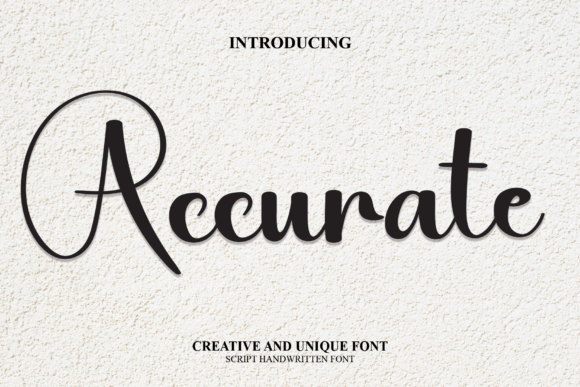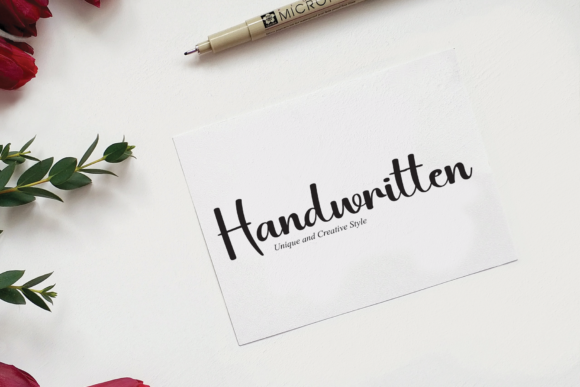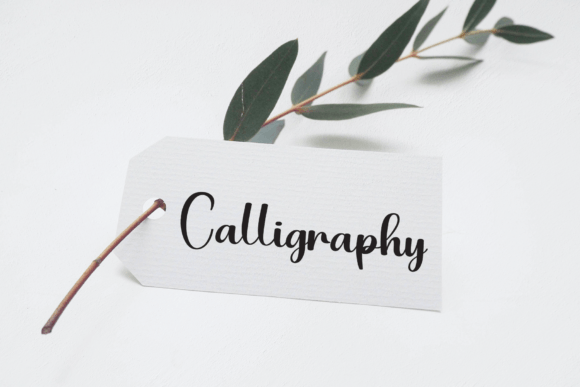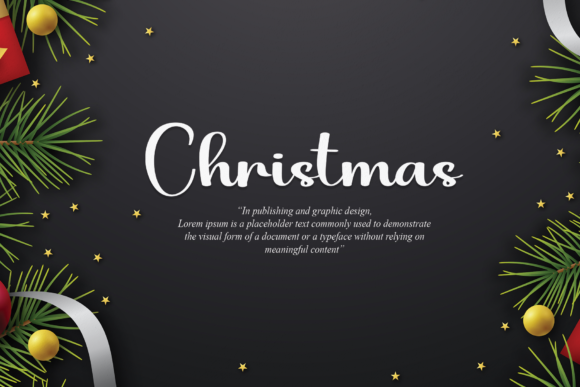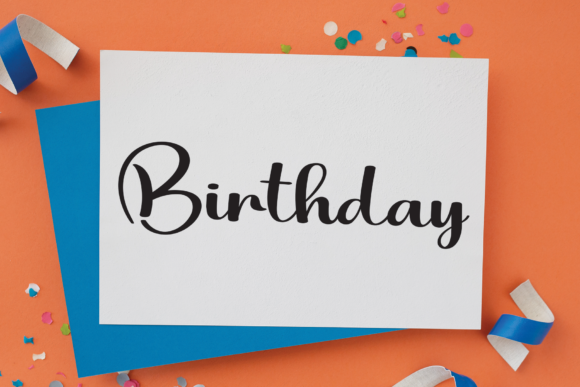
Accurate Font
About Accurate Font
“Accurate”: A Modern Script Typeface with Unique Flow and Elegant Personality
Introducing “Accurate,” a new modern script typeface that brings its own unique flow and elegant personality to the forefront. Designed to meet all your design project needs, including logo design, branding, covers, posters, and more, “Accurate” stands out as a versatile and stylish font choice.
The standout features of “Accurate” lie in its modern script design, showcasing a distinctive flow and an elegant personality. Each letter is crafted with precision to provide a contemporary and sophisticated look. Whether you’re working on logos, branding elements, covers, posters, or any design project, “Accurate” becomes the key element that adds a touch of modernity and style.
Imagine using “Accurate” in logo design where the font’s unique flow creates a memorable and distinctive brand identity. In branding projects, the elegant personality of the font enhances the overall sophistication and visual appeal. Its versatility shines through in covers and posters, making your designs stand out with a modern and stylish flair.
“Accurate” is not just a typeface; it’s a design asset that elevates your projects with its contemporary and elegant aesthetics. The font’s versatility ensures that it complements a wide range of design contexts, allowing you to express your creativity with sophistication.
In conclusion, “Accurate” is designed to be your go-to font for modern and stylish design projects. Whether you’re working on logos, branding, covers, posters, or any other creative endeavor, let “Accurate” be the font that adds a unique flow and an elegant personality to your designs. Explore its possibilities, embrace its modernity, and watch as it transforms your projects into visually stunning and sophisticated creations.